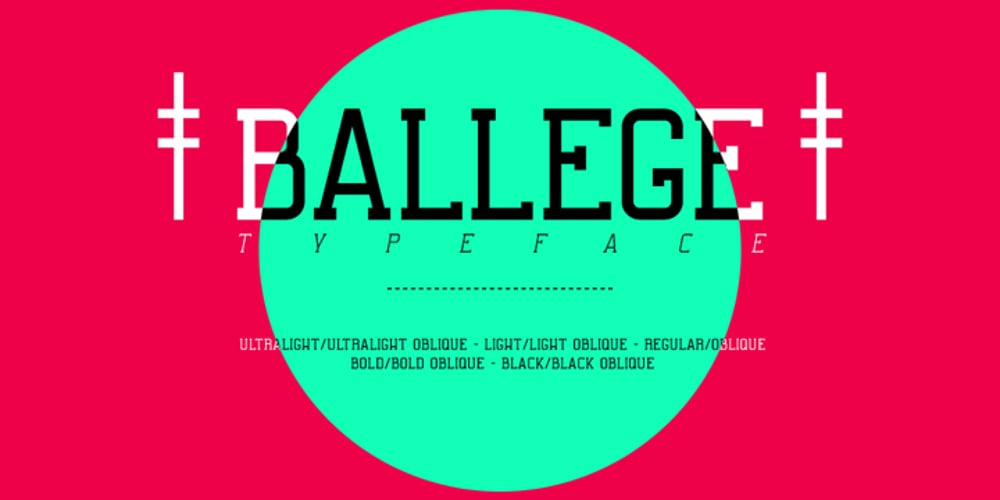
Ballege Font Family was designed by Jose Antonio Garrido Izquierdo and published by Noem9 Studio. Ballege contains 20 styles and family package options. The Ballege typeface is a Slab Serif inspired by College sports and ball games. I started working on it after watching the film ‘MoneyBall’, Directed by Bennet Miller. It’s inspired by College sports and ball games. This typeface features more than 200 glyphs, including different punctuation, currency or lots of symbols.